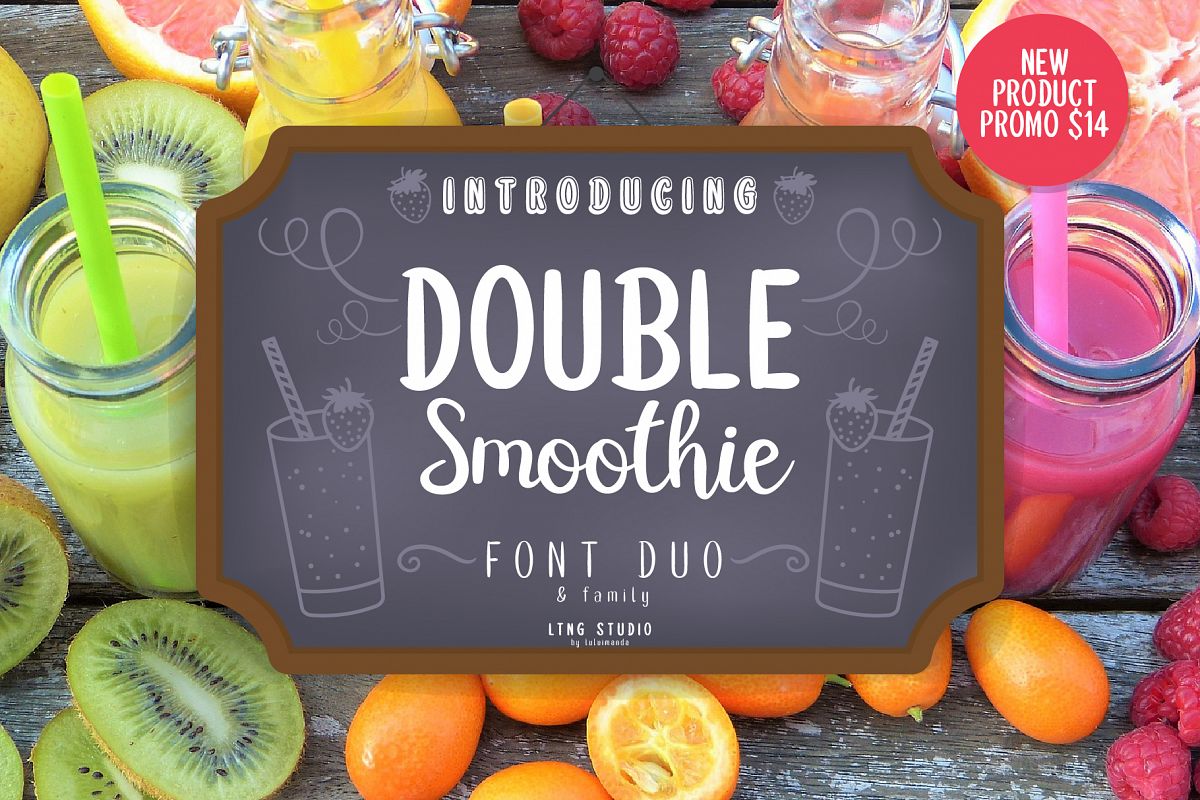
Double Smoothie Font Duo and Family
Introducing Double Smoothie… A fun font duo with family and bonus doodles. Double smoothie is hand drawn brushed typeface, with smooth stroke and cute shape, is perfect for any kind of design such us wedding, greeting cards, fashion and etc. WHATS INCLUDED :